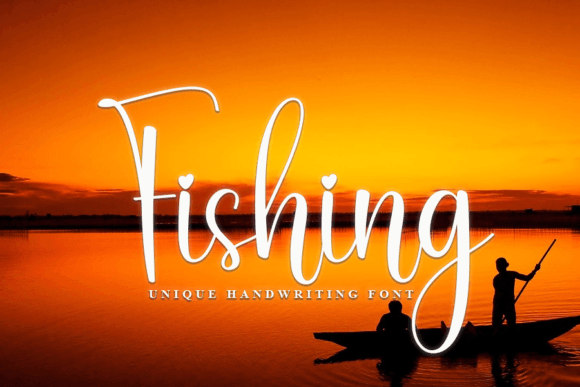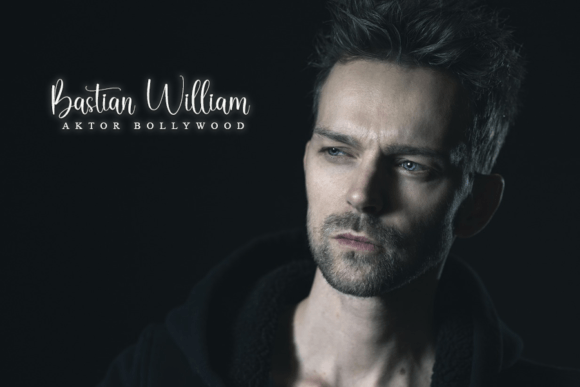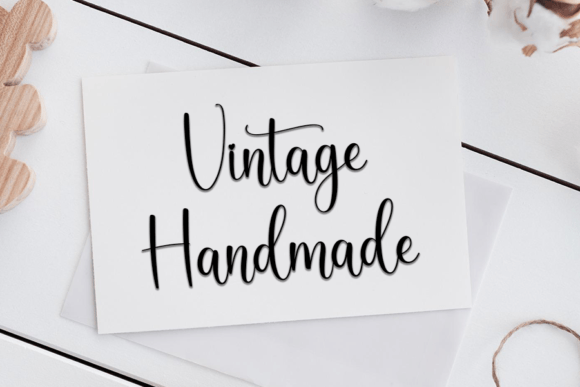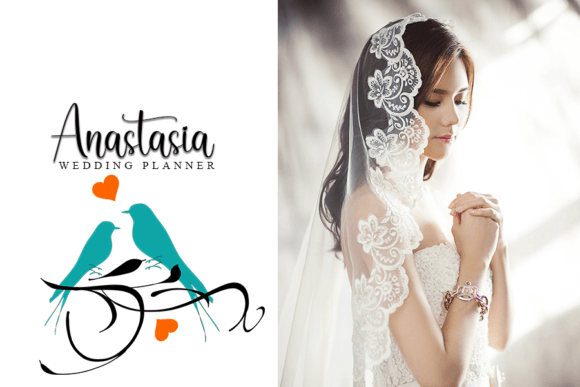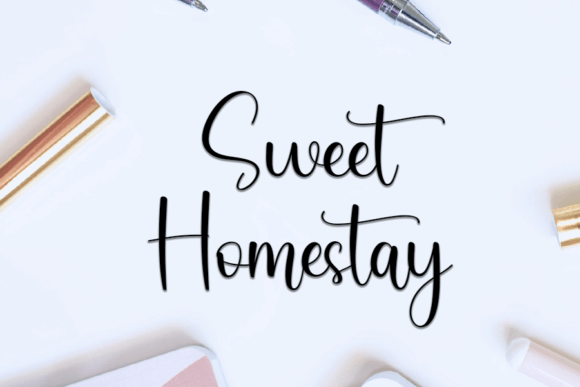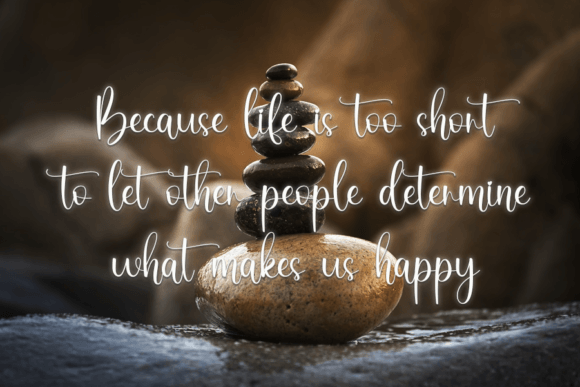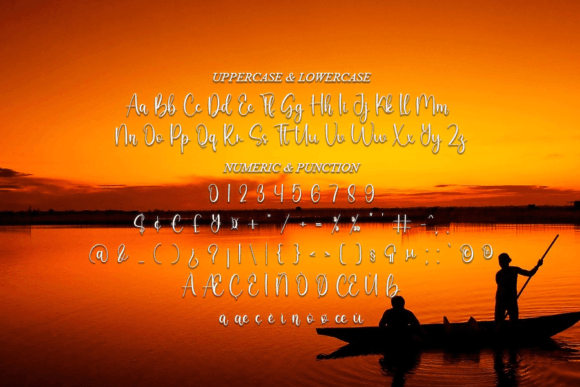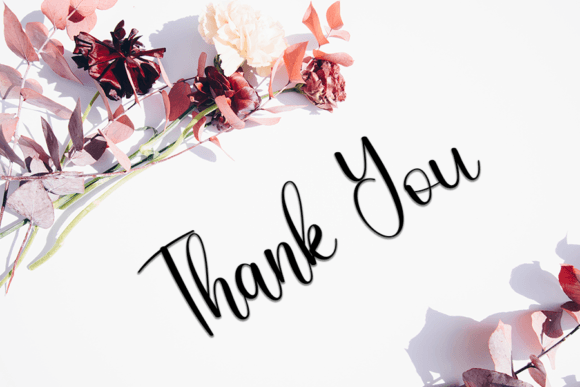
Fishing Font
About Fishing Font
Fishing Font is a delicate handwritten typeface crafted with care to bring elegance and personality to your creative work. Whether you’re working on food packaging, personal invitations, or digital branding, this font provides a stylish, handwritten feel that enhances your design with a unique character.
Designed to blend charm and clarity, Fishing Font offers smooth lines and a relaxed appearance, making it ideal for projects that require a personal touch. Its playful curves and light rhythm make it stand out while maintaining excellent readability in both digital and print formats.
Where to Use Fishing Font
This font shines in a wide range of design scenarios. Thanks to its balance of sophistication and friendliness, it’s a strong fit for:
• Wedding invitations and thank-you cards
• Product labels and packaging, especially for handmade or gourmet goods
• Branding materials for lifestyle or artisanal businesses
• Greeting cards, quotes, and personal projects
• Social media graphics, blog headers, and title treatments
Its gentle flow and handwritten style help bring warmth and authenticity to any text it touches.
If you’re searching for a handwritten font that’s versatile, charming, and easy to read, Fishing Font is the answer. Here’s why it’s a great choice:
• Smooth, casual strokes that mimic natural handwriting
• Elegant character design suitable for formal and fun projects alike
• High readability in both large and small sizes
• Perfect for print and digital applications
• Adds a personal, heartfelt touch to your messaging
Moreover, FishingFont pairs well with both serif and sans-serif fonts, making it a flexible addition to your type toolkit.